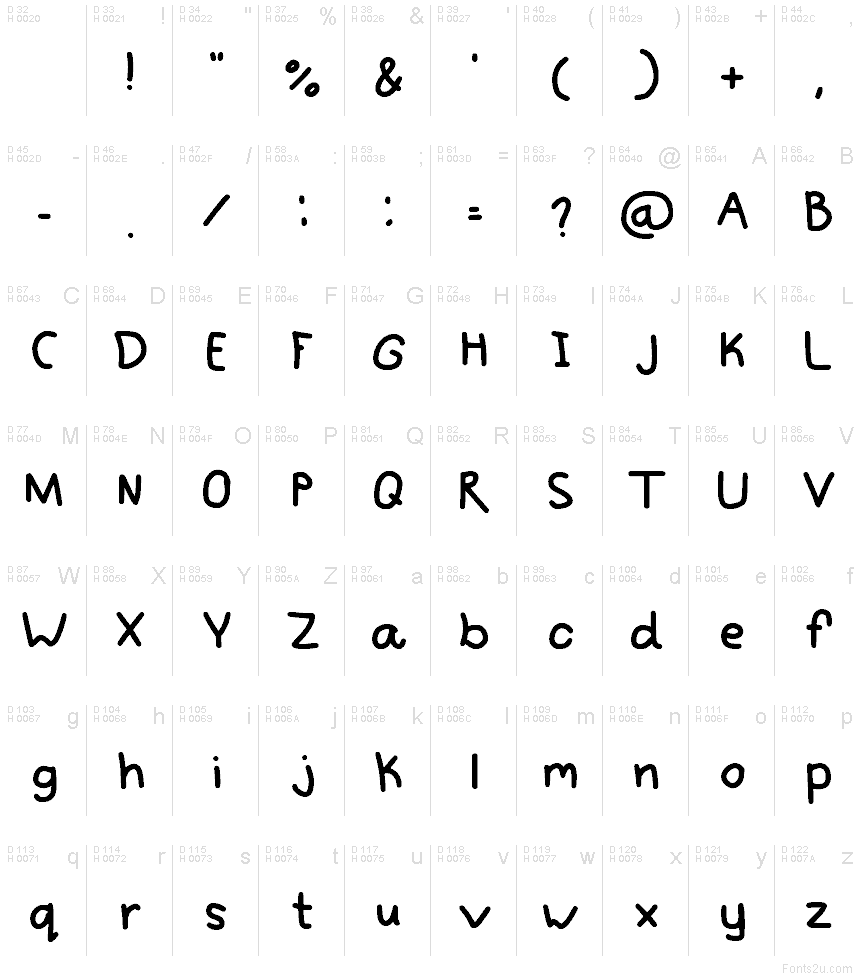
Quiet Girl Regular
Quiet Girl font by Icy UwU is a free handwritten typeface with soft, pillowy curves and rounded strokes that feel like they were drawn with a favorite gel pen. The letters are bubbly but still neat, giving text a shy, cozy energy instead of loud chaos. Its even spacing and clear shapes make it easy to read at small sizes while still looking charming and personal up close.
Using Quiet Girl, this free font shines on children’s book covers, kawaii branding, planner pages, social media graphics, stickers, and playful product packaging. The friendly rhythm of the letters keeps designs light and approachable, without slipping into messy scribbles. For a simple pairing, use Quiet Girl for headlines and match it with a clean geometric sans serif for body text to keep the sweet, handwritten voice front and center.